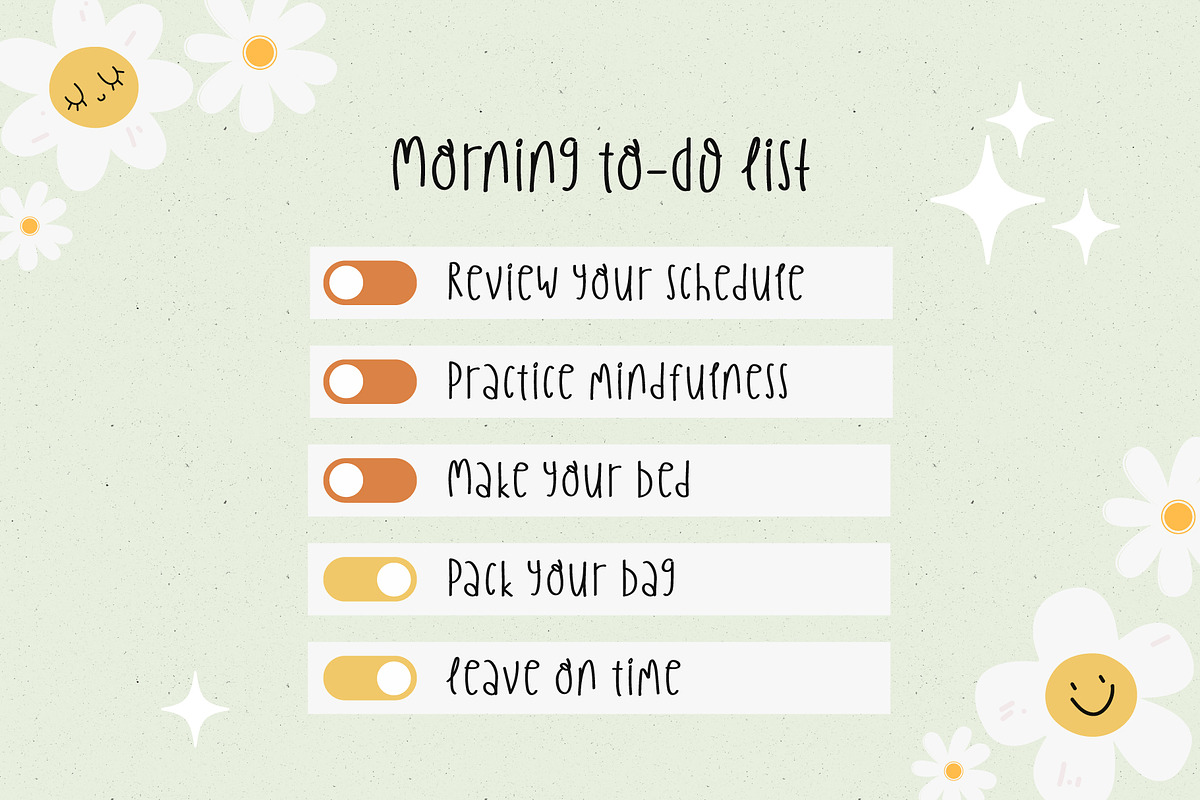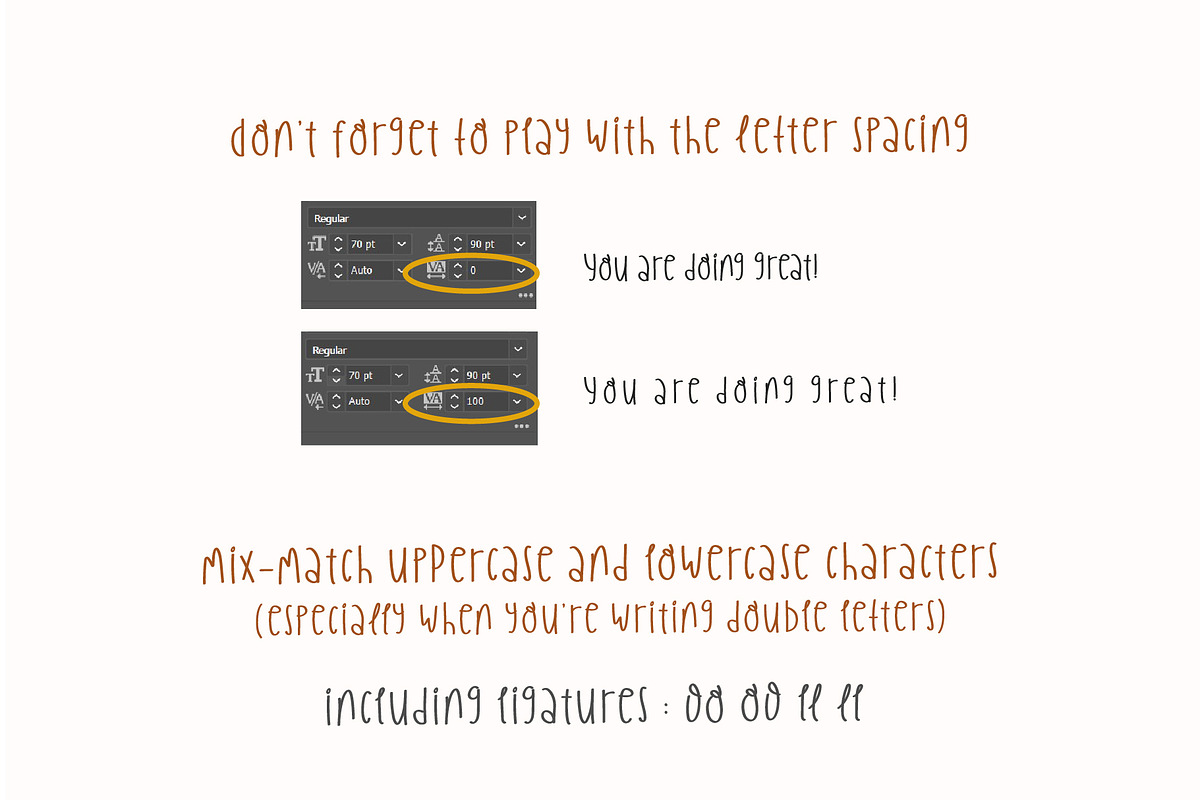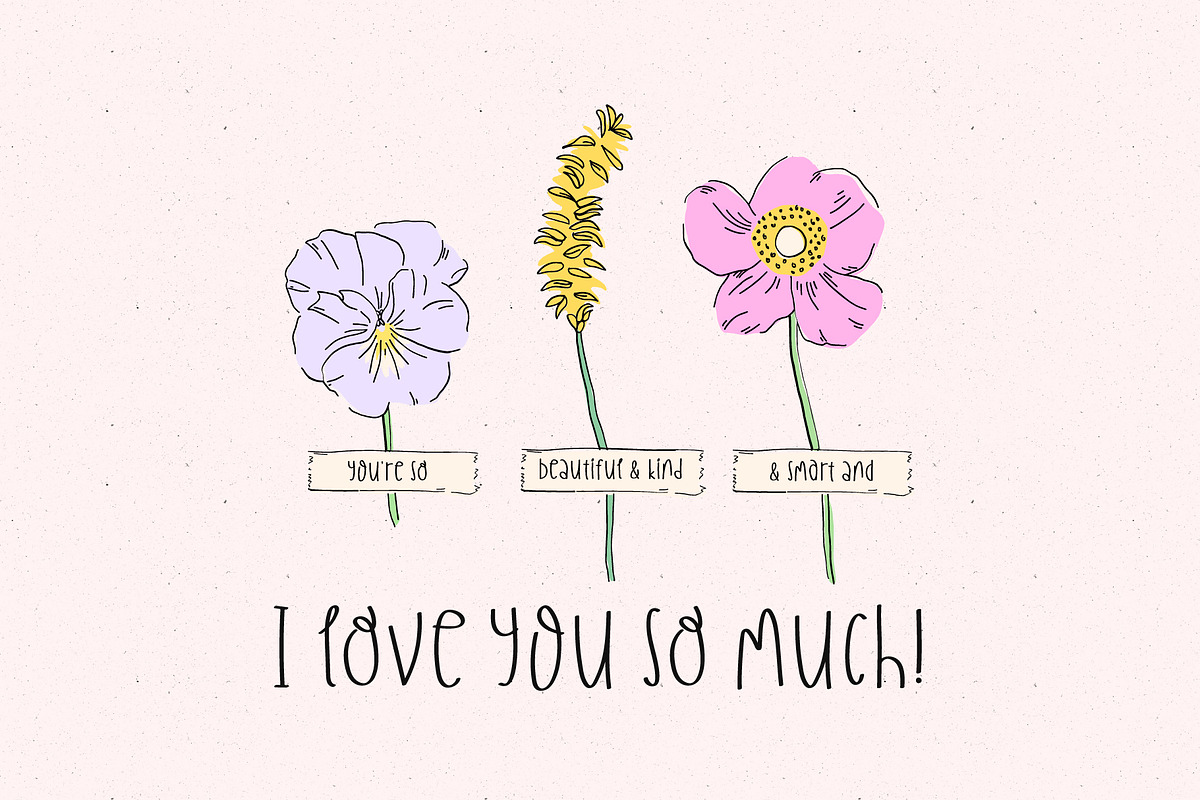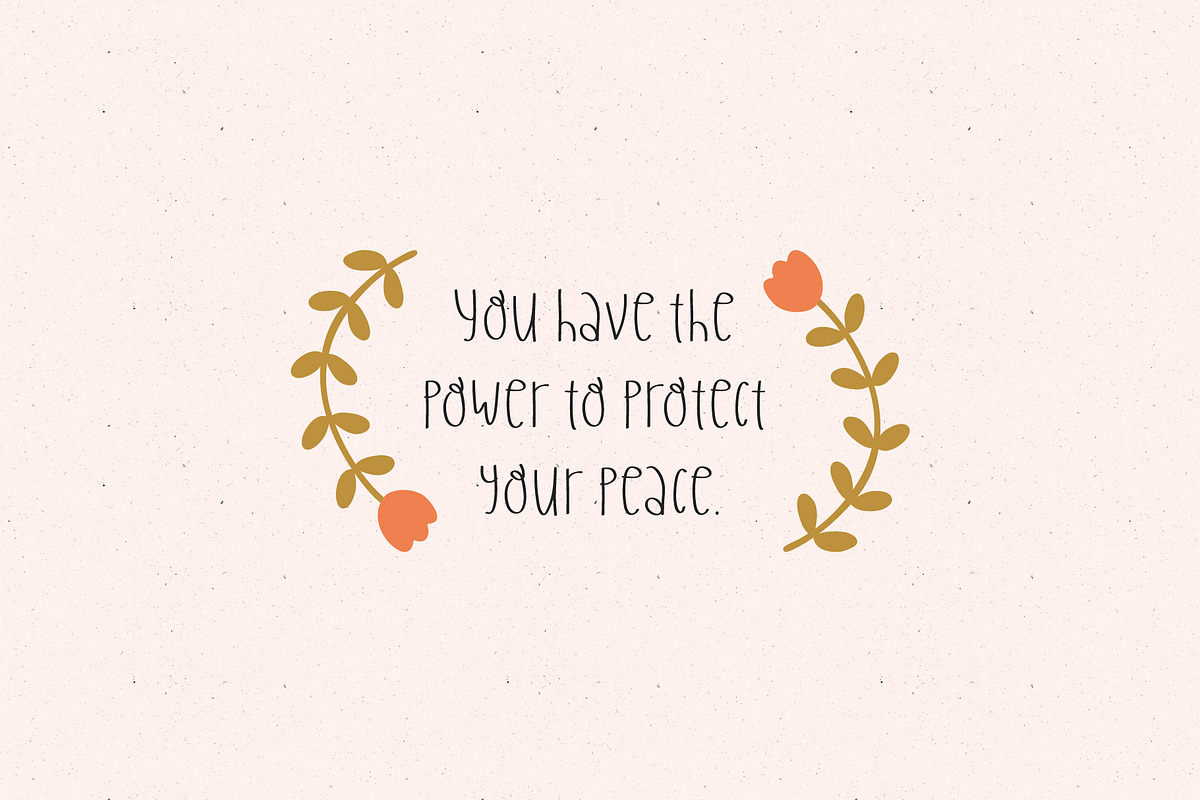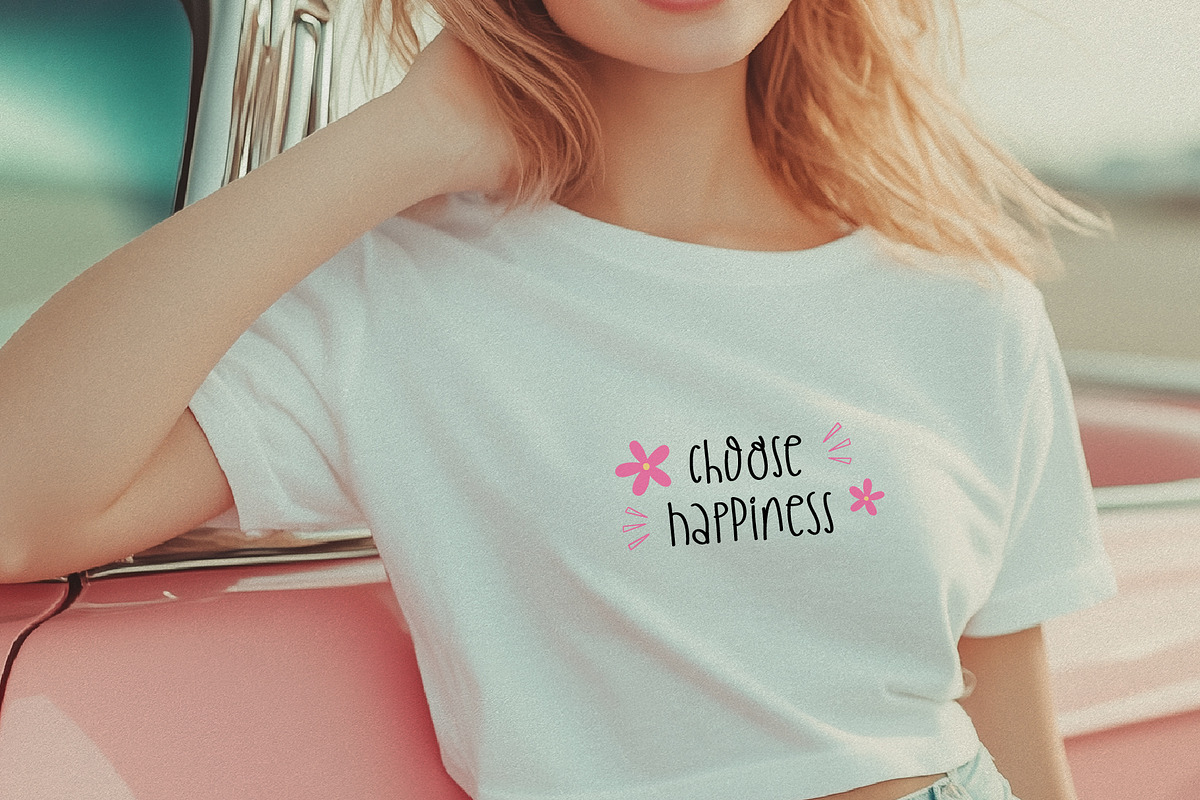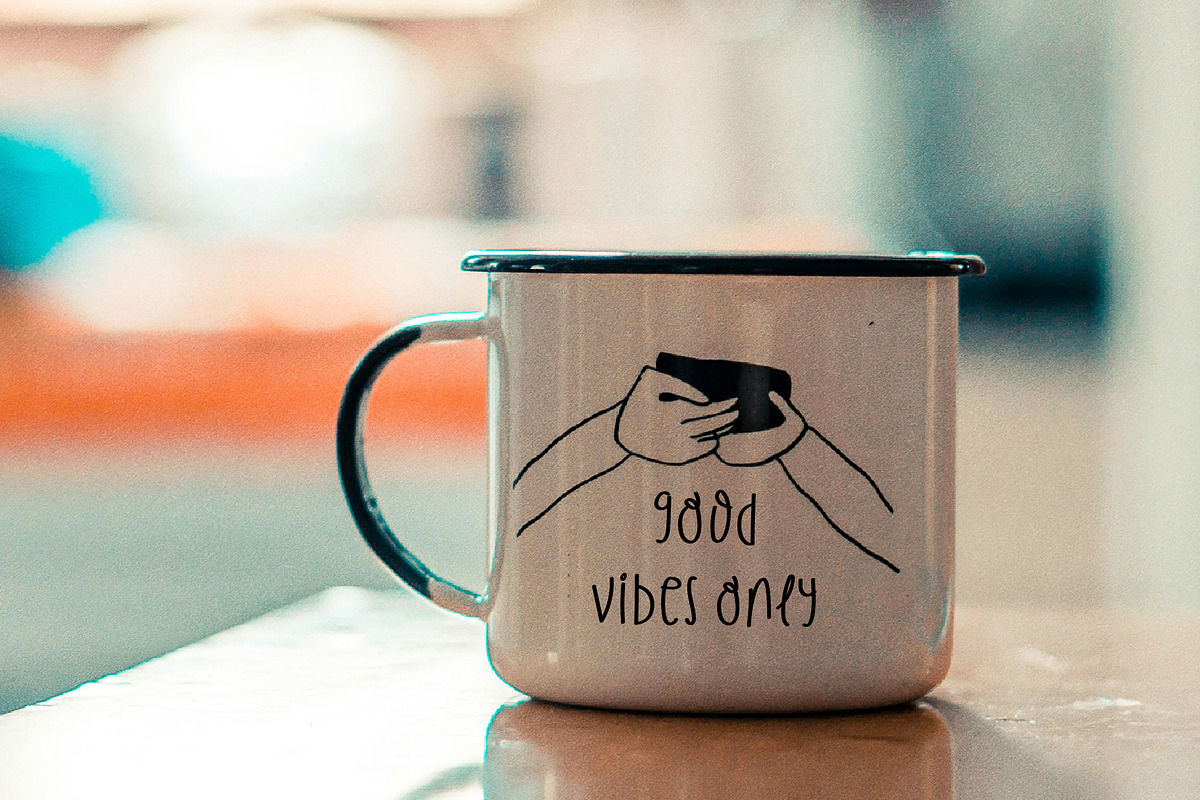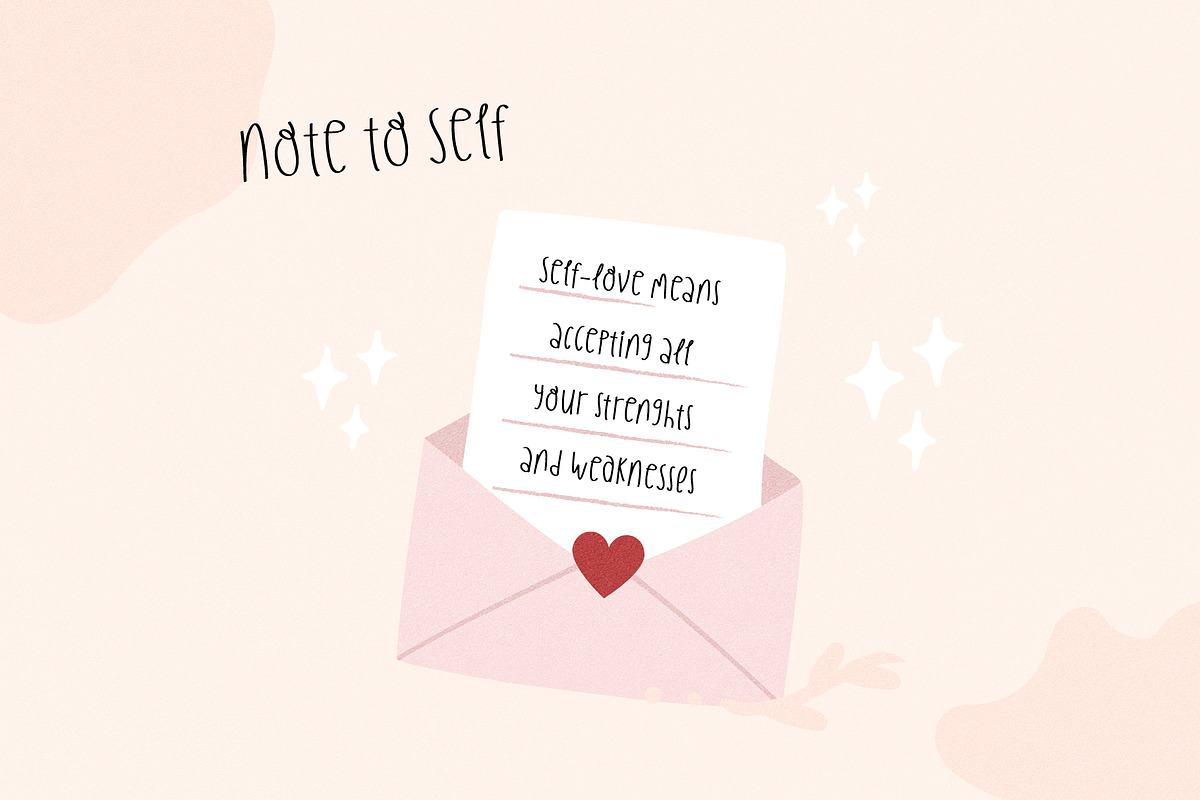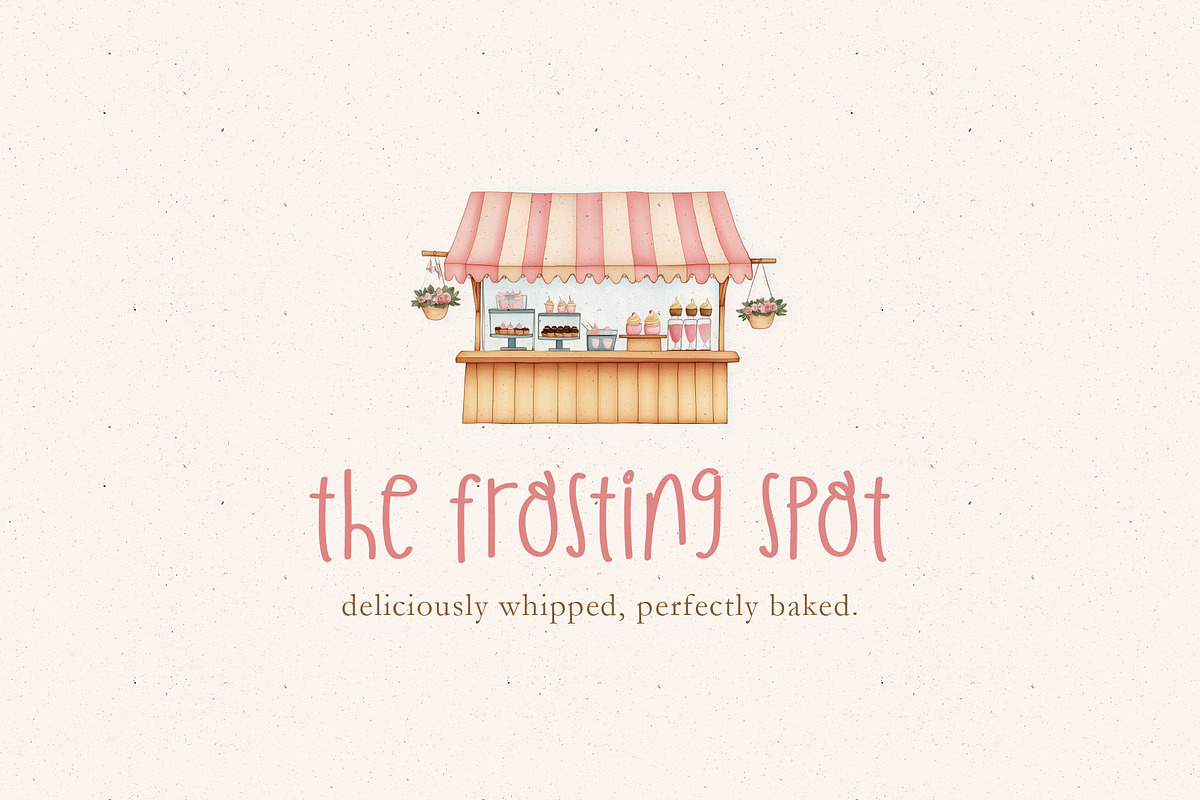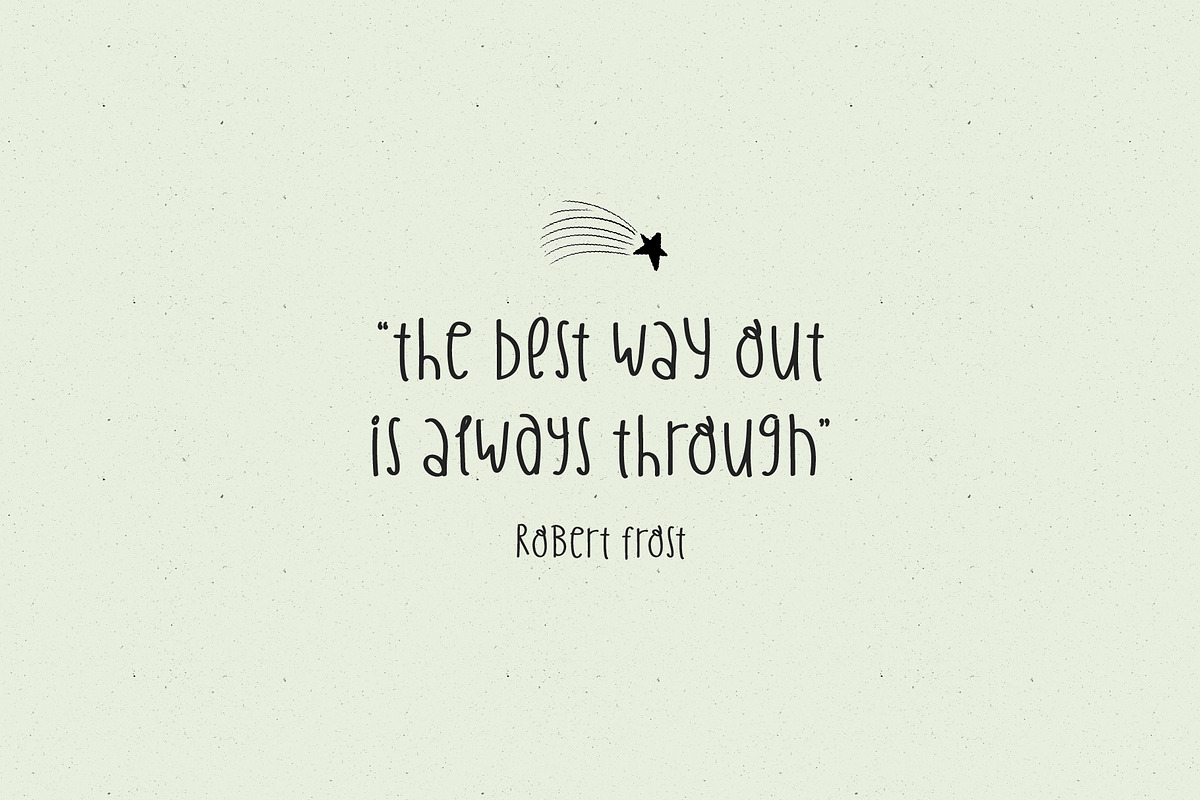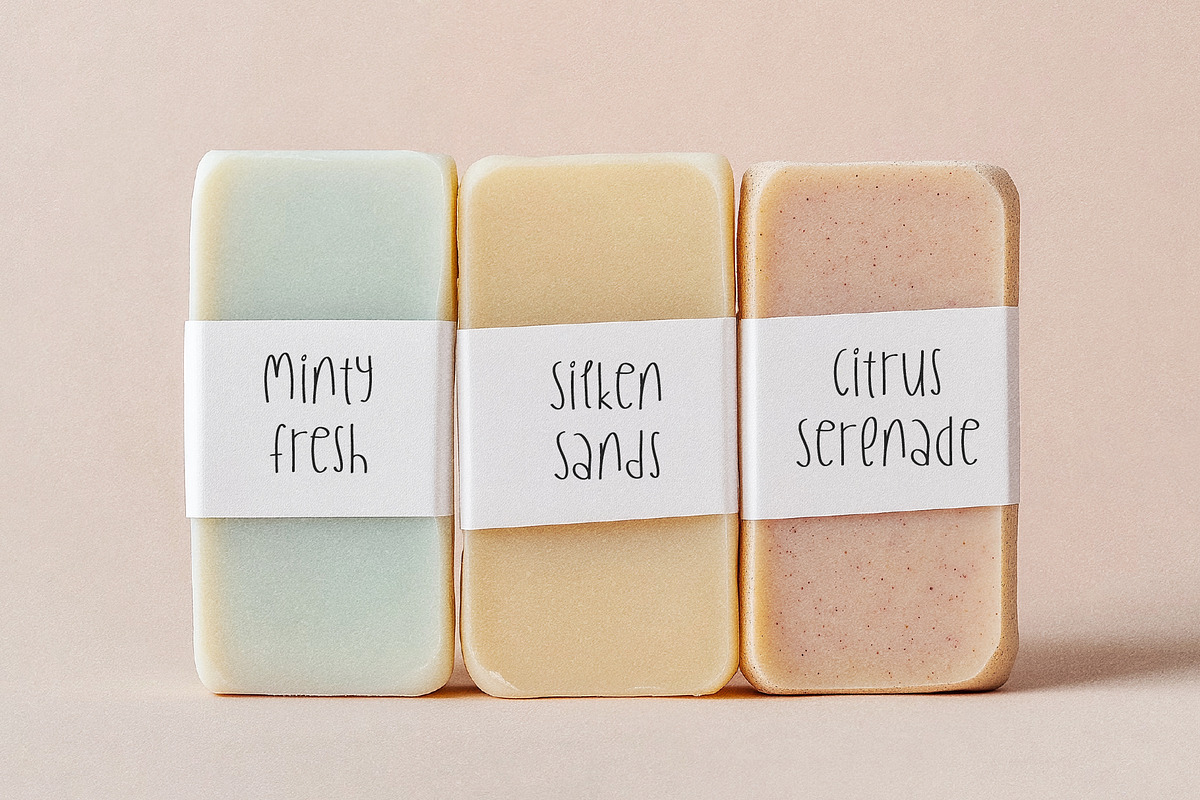
Cookies and Smiles Handwritten Font
Say hello to Cookies and Smiles, a cute, mixed case handwriting font. It is great for craft projects, invitations, greeting cards, logos, branding, social media, printed goods or anything that requires cute handwritten lettering.
This versatile font comes in two weights— regular and bold— and it has international characters.
• Cute handwriting style
• Mixed case character sets
• Standard characters (lowercase, uppercase, numbers, punctuation)
• Supported Languages: Danish, English, Filipino, Finnish, French, Friulian, Galician, German, Irish, Italian, Low German, Luxembourgish, Norwegian Bokmål, Norwegian Nynorsk, Spanish, Swedish, Swiss German, Turkish